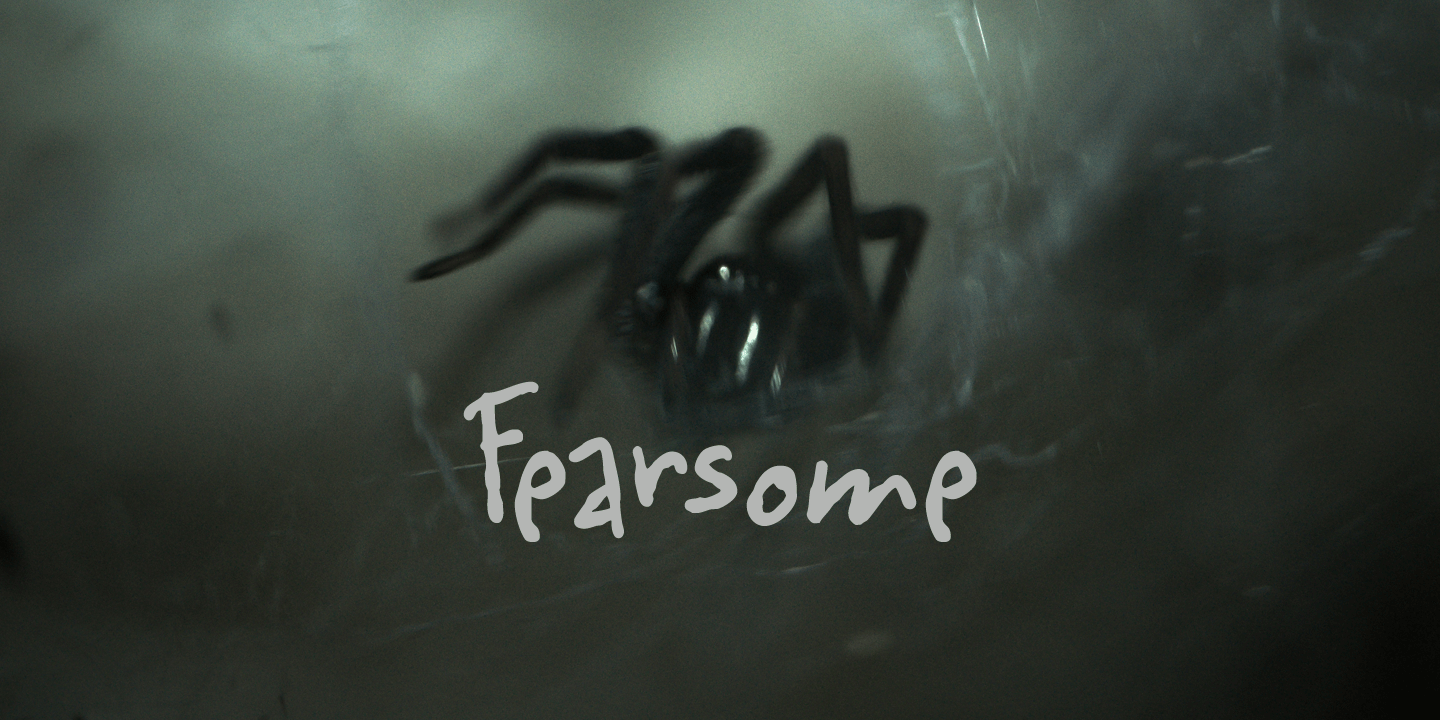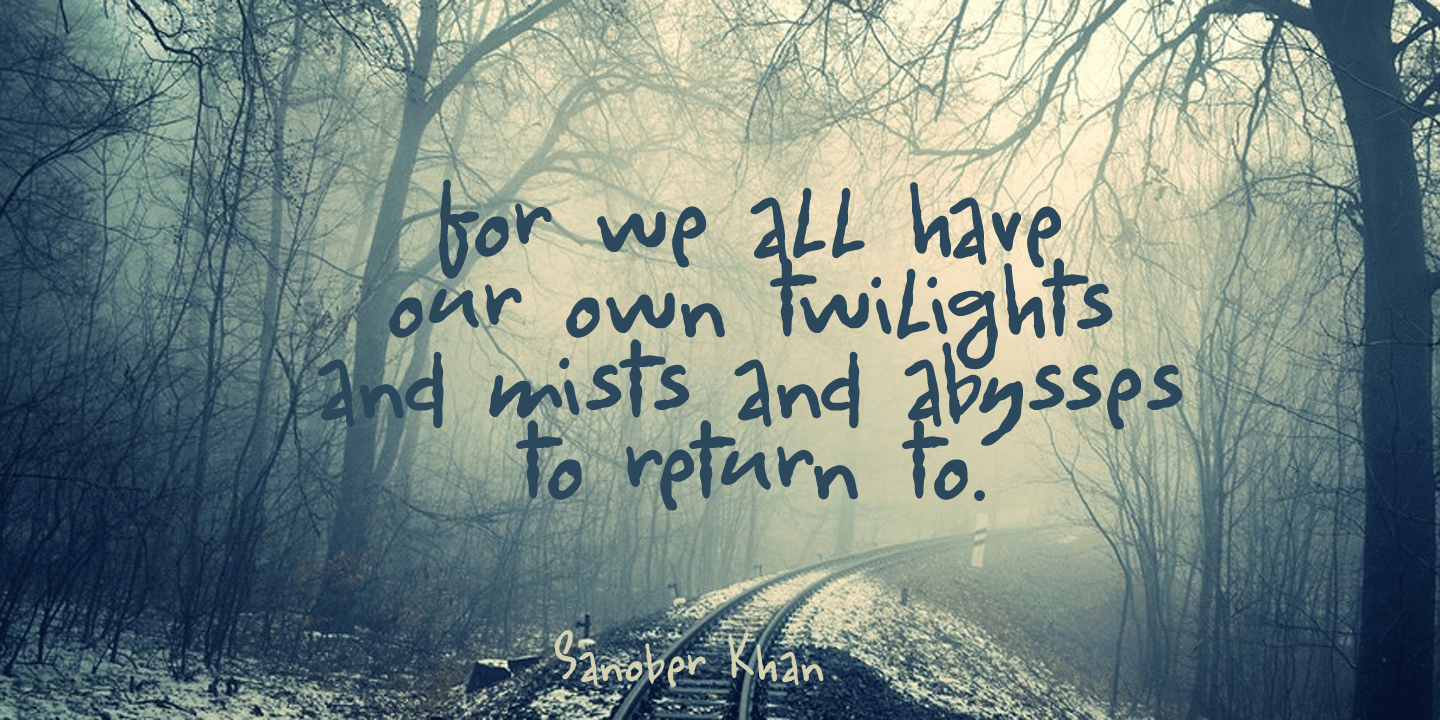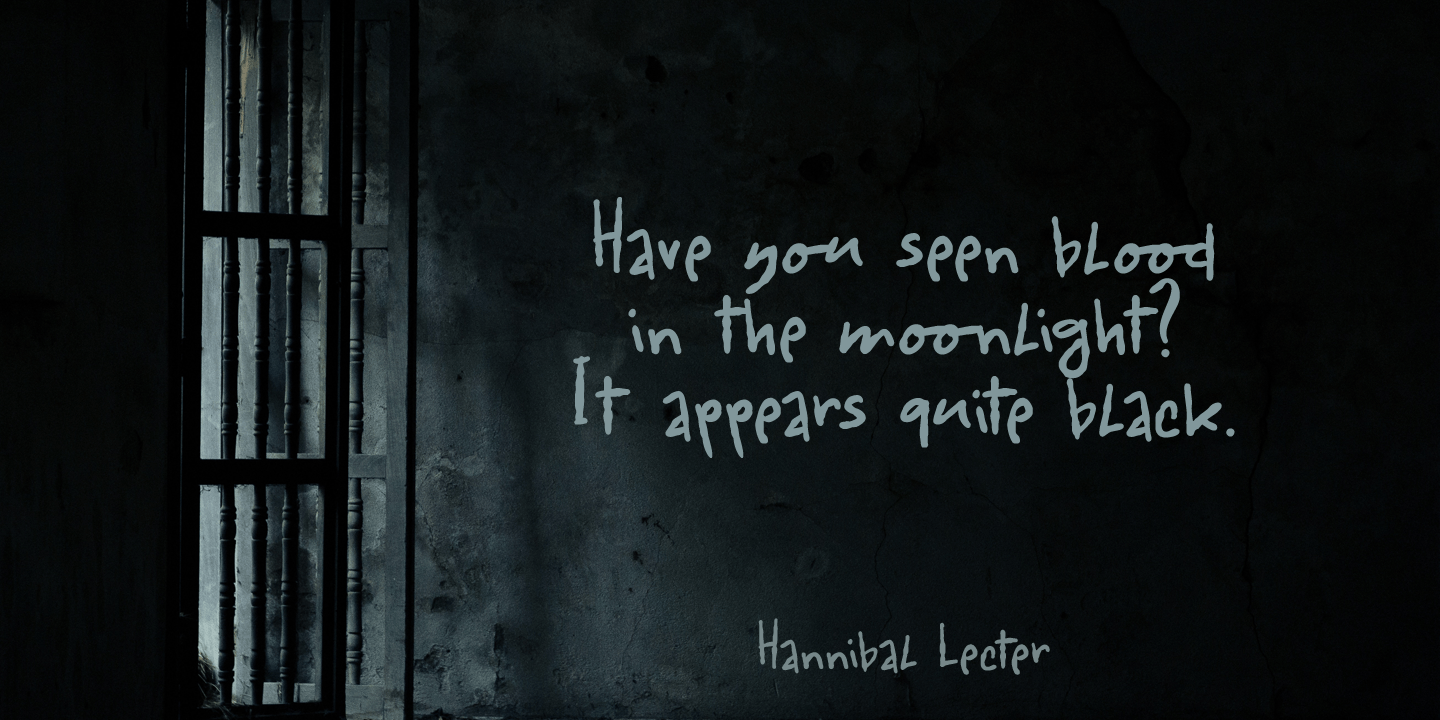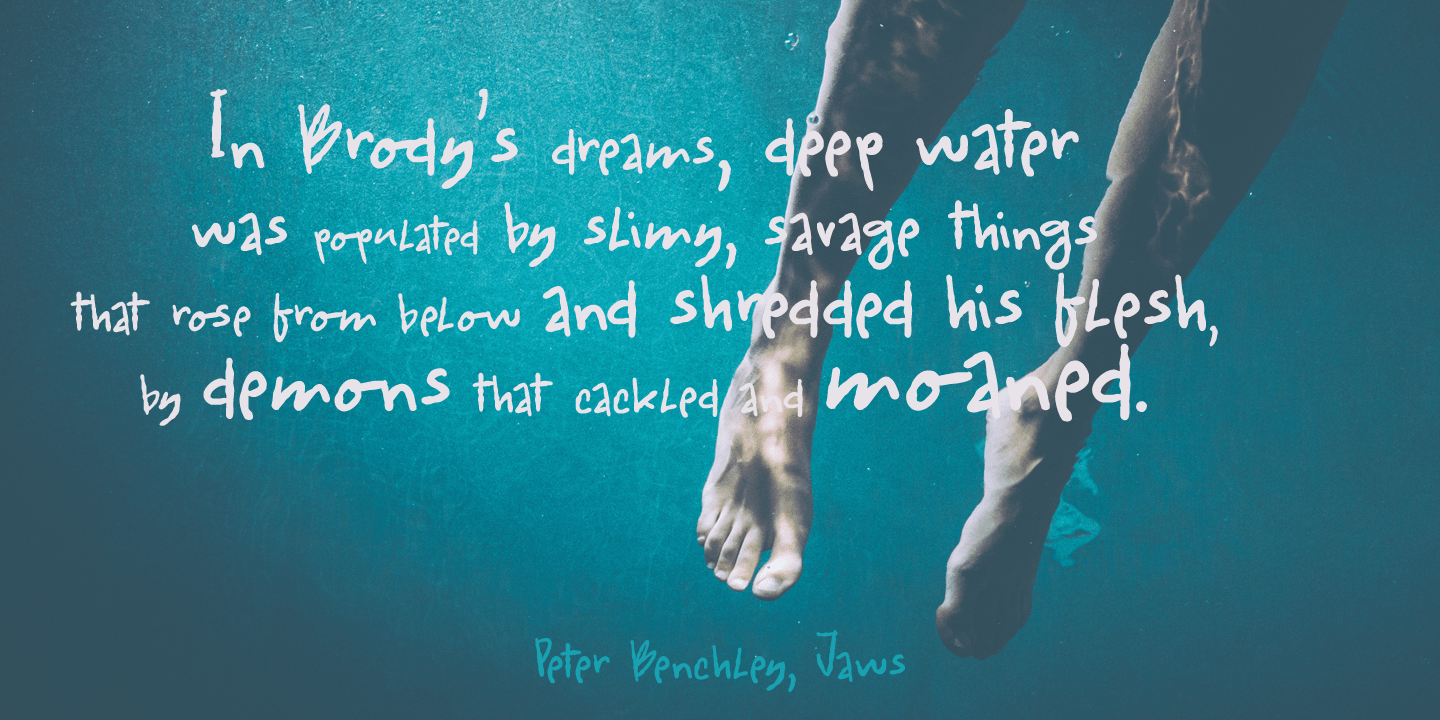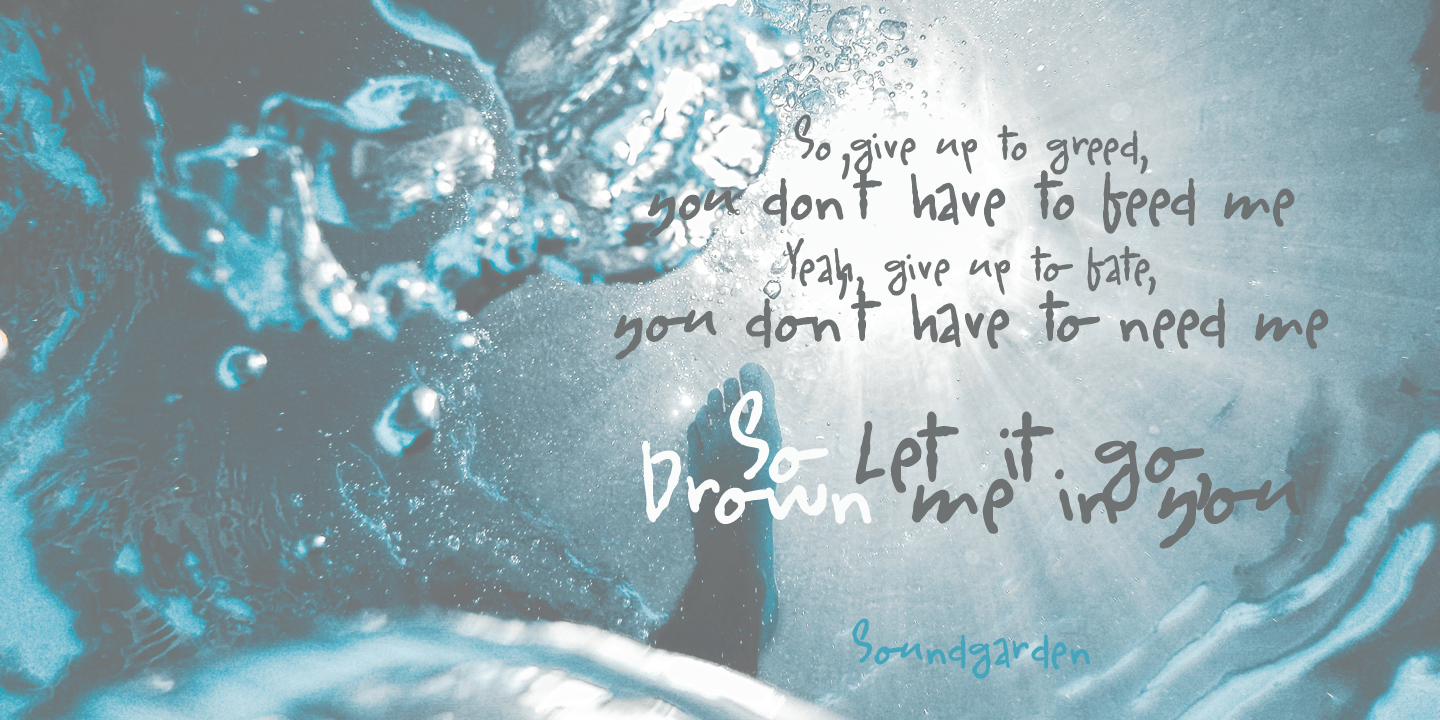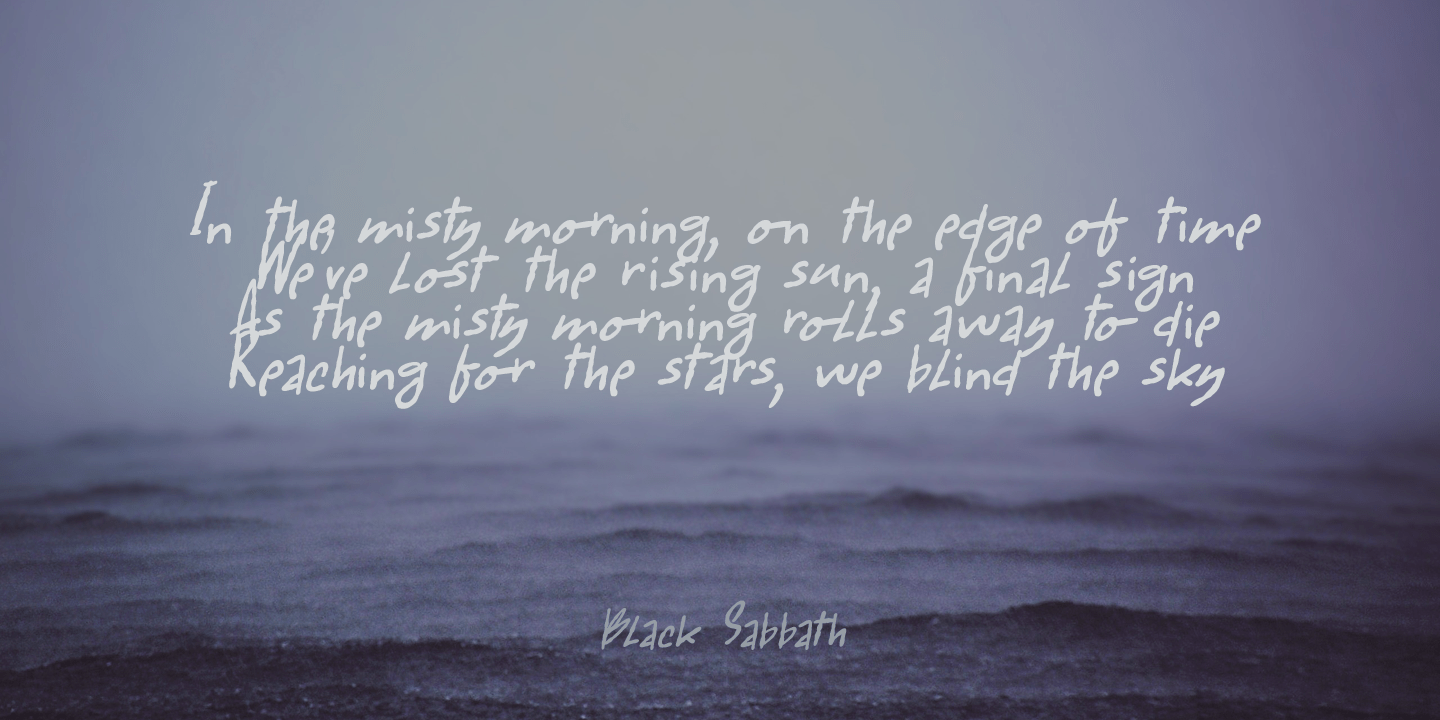
Fearsome
Buy NowI watched the movie Red Dragon a while ago and it inspired me to make this rather spooky font. I was going to call it Dolarhyde (after the antagonist), but settled on the more unsettling Fearsome.
Fearsome is a handmade script font with a ?psychopath? feel to it. Comes with a gruesome amount of diacritics.